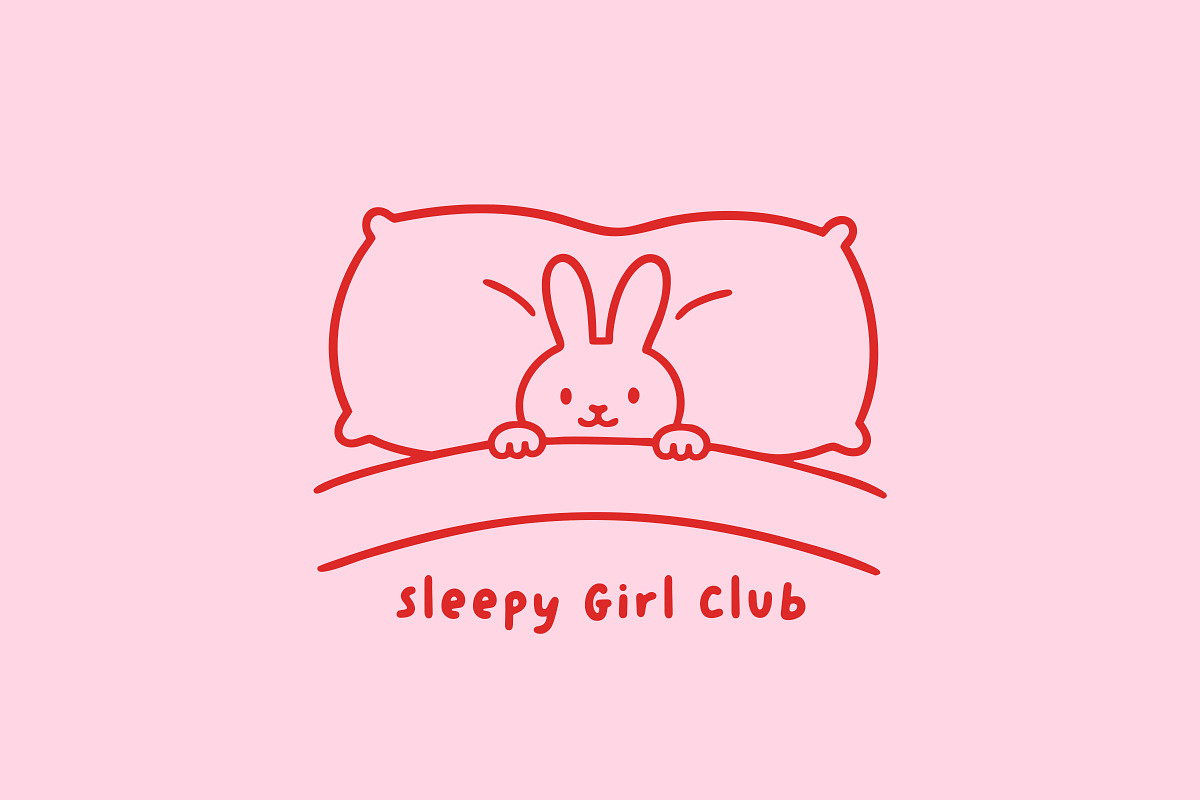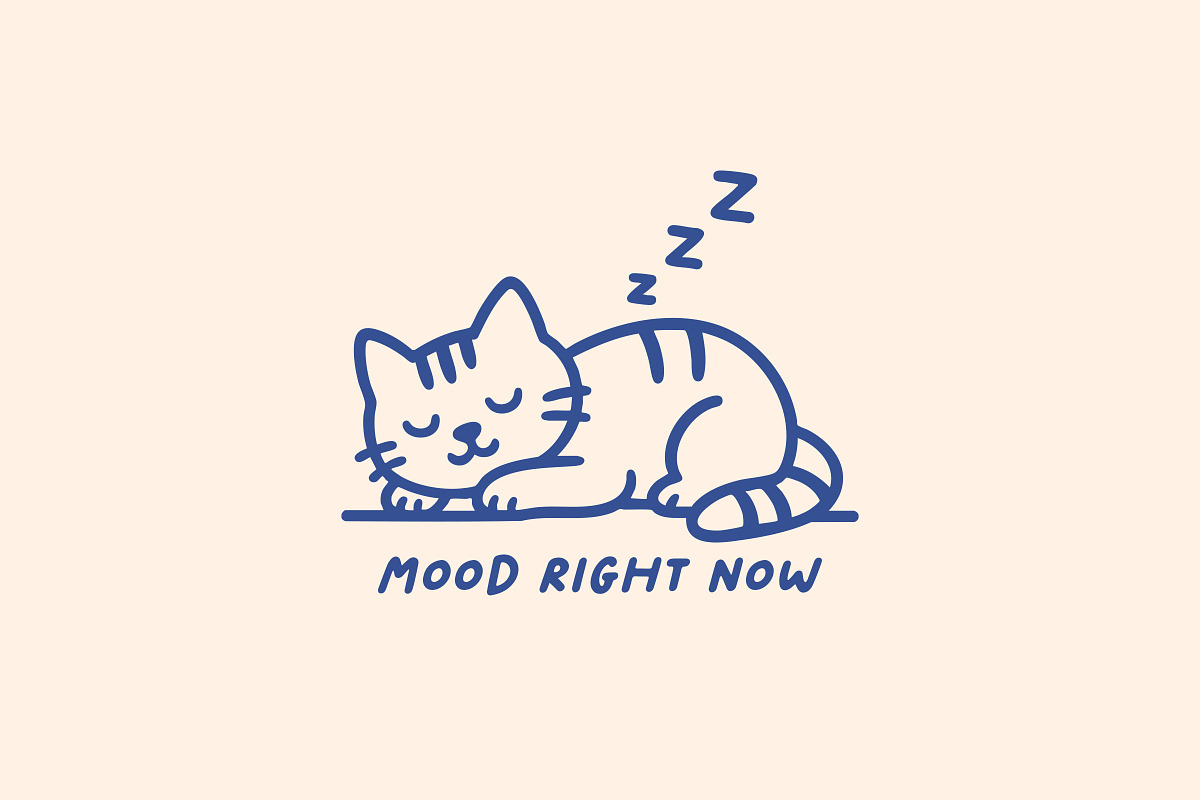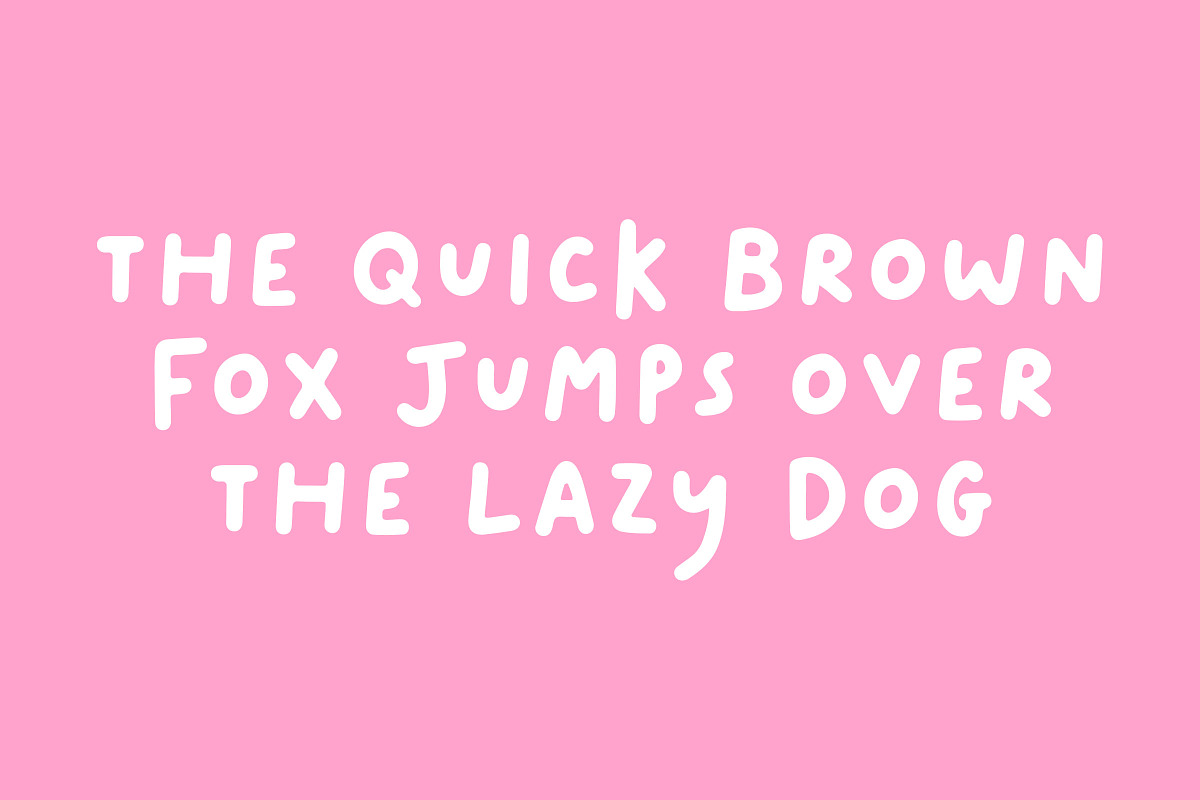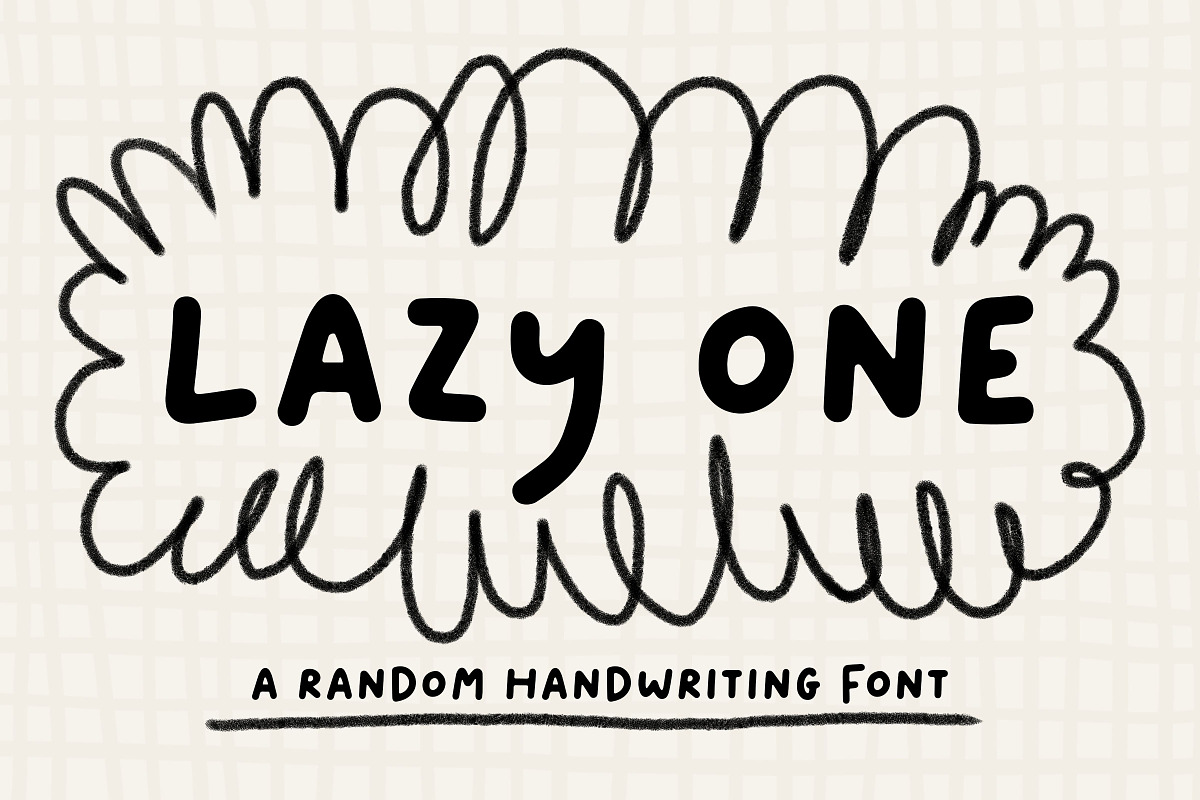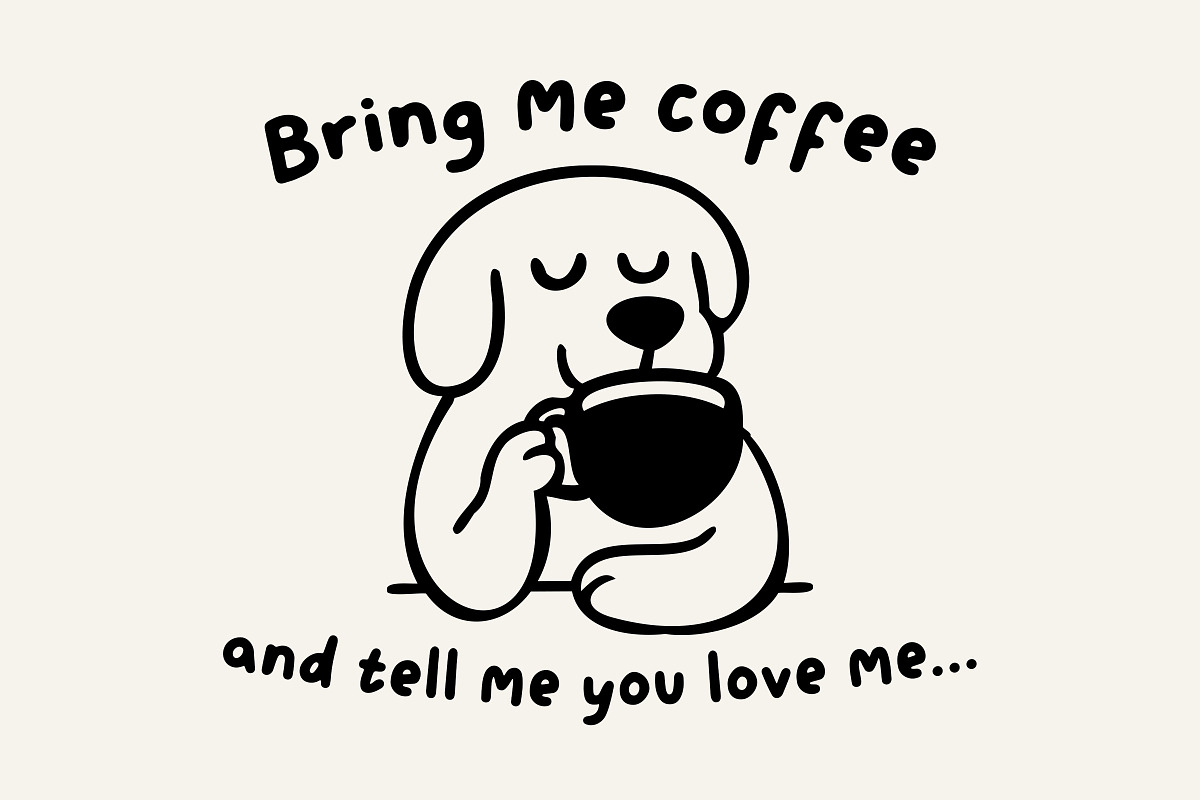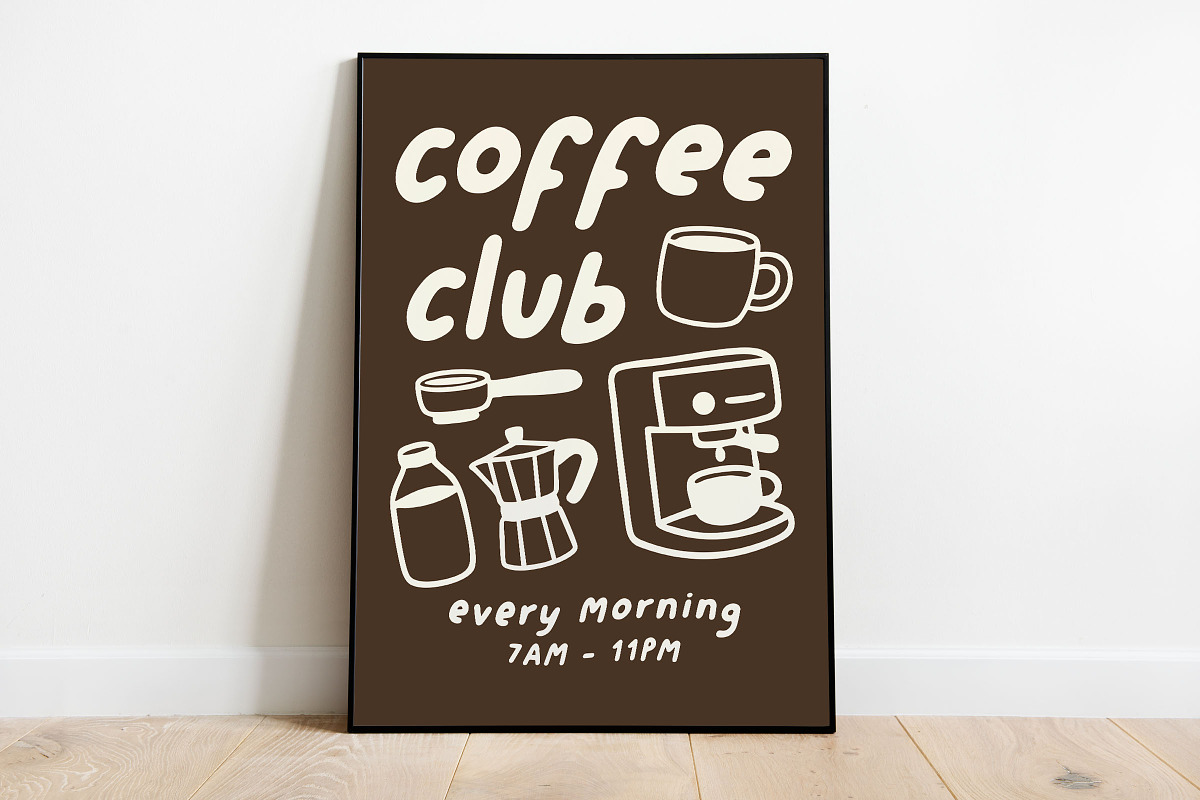
Lazy One - A Random Handwriting Font
Lazy One is a random imperfect handwriting typeface perfect for any fun quirky design work! This font can be used for anything such as t-shirt designs, phone cases, greeting cards, invitations, mugs and so much more! Get creative!